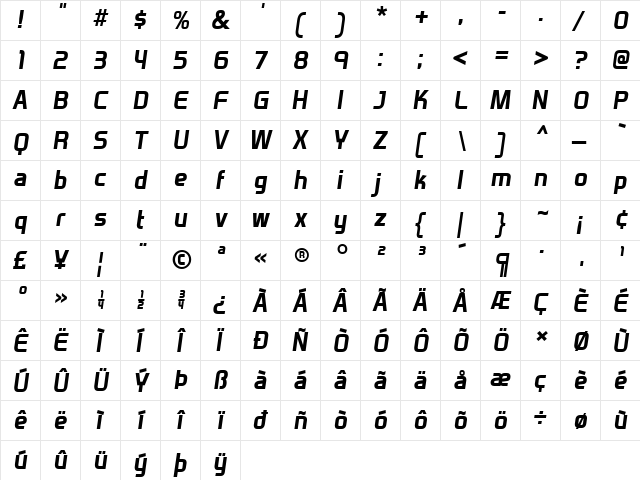
Venacti Bold Italic Font Preview
Design Context for Venacti Typeface
Venacti takes a measured approach to typography — its balanced proportions and neutral character make it a reliable workhorse for both digital and print work. Its italic angle brings a sense of urgency and motion to the letterforms. The heavy weight commands attention and anchors typographic hierarchies.
Pro Tip: Try Venacti for annotation and caption copy alongside an upright companion — the contrast in angle creates a dynamic but ordered typographic system.